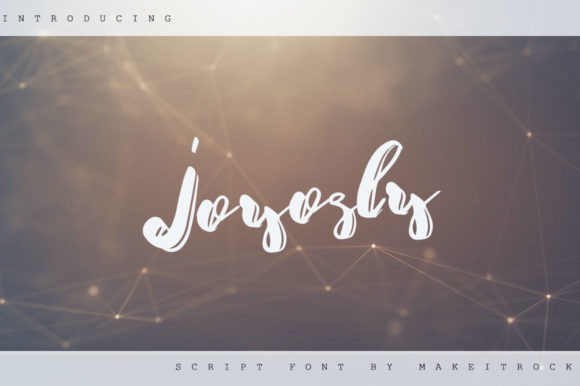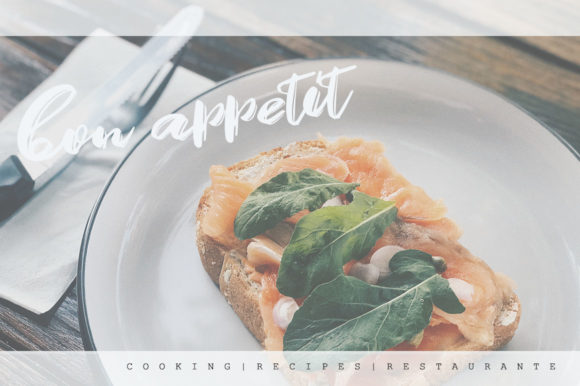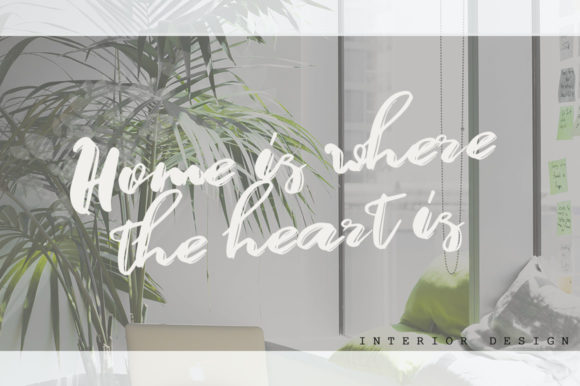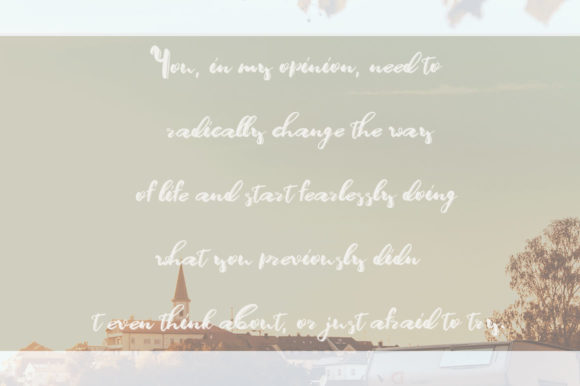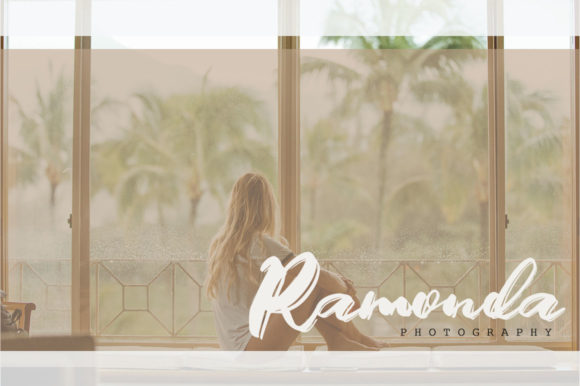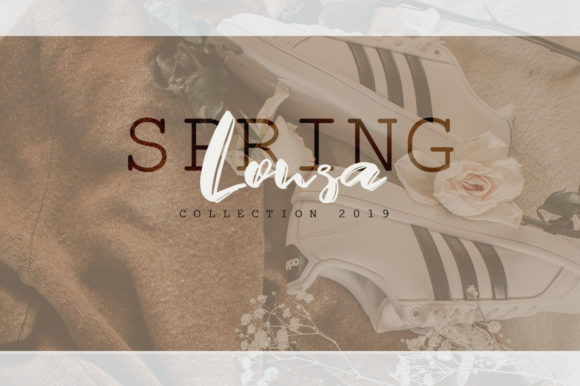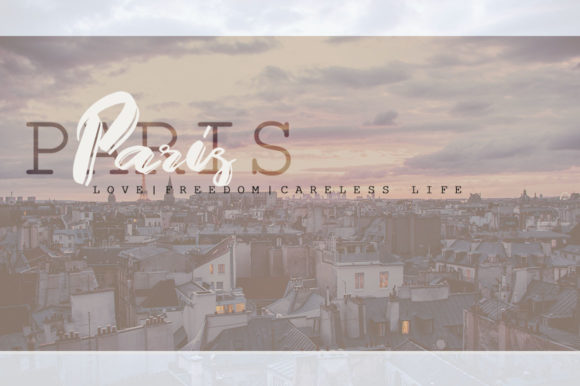
Joyosly Font
About Joyosly Font
The Joyosly is an attentively written handwritten script. It has gentle curves which produces a completely distinctive and original design. It’s perfect for adding an elegant and unique touch to your lettering projects and branding.